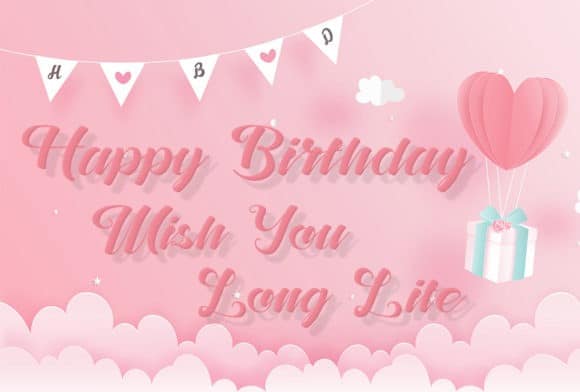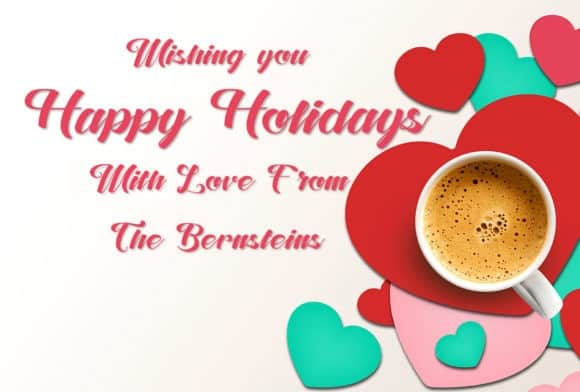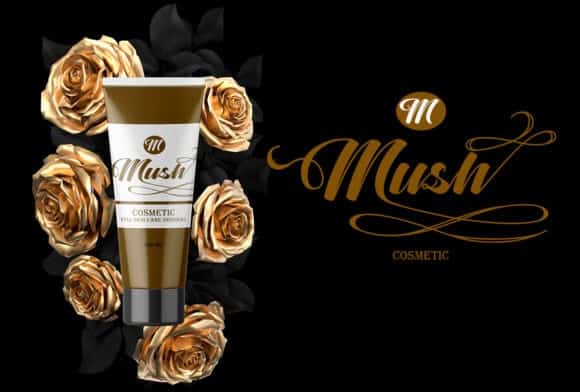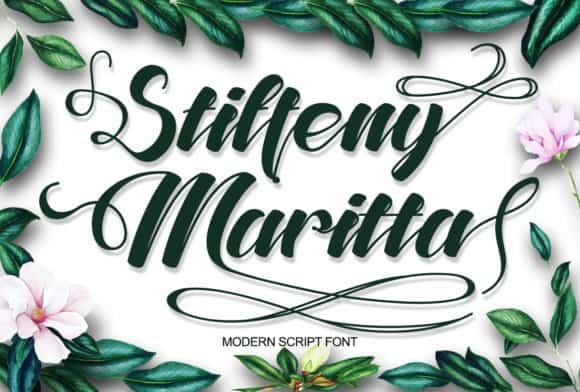
Stiffeny Maritta Calligraphy Font
Stiffeny Maritta Calligraphy Font is an incredibly beautiful script typeface. It has a classy, elegant, and modern look which can be used for logos, branding, invitations, stationery, wedding designs, social media posts, and much more! This font is a script typeface from the designer Sealoung. It’s a flowing handwritten font, described by an elegant touch, perfect for your favorite projects. Fall in love with its incredibly distinct and timeless style and use it to create spectacular designs!